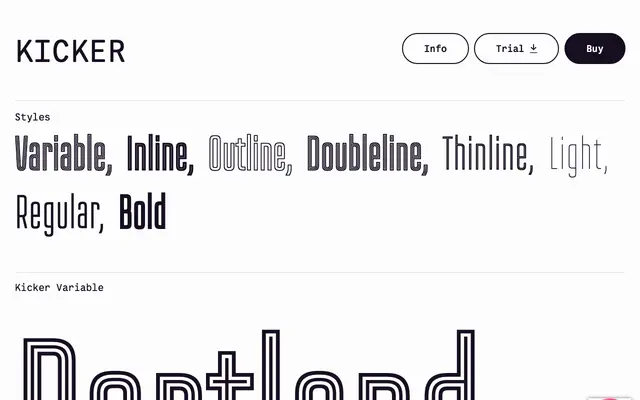
Kicker
Vectro · Travis Kochel · 2018
A layerable display typeface by Travis Kochel, originally designed for Design Week Portland, drawing on the city's neon signage tradition.
Conceived for Design Week Portland in 2012 and formally released between 2018 and 2022, Kicker offers seven styles including Inline, Outline, Doubleline and Thinline cuts designed to be stacked and mixed. A variable font with three independent layer axes lets users fine-tune line thicknesses across each layer independently. The design draws from Portland's neon sign culture, with a sporty sensibility layered on top to suit event branding and editorial display use.
A decorative layered display face designed for stacking multiple cuts to create inline, outline and double-inline effects; its neon sign inspiration and sporty character place it firmly in the display category.